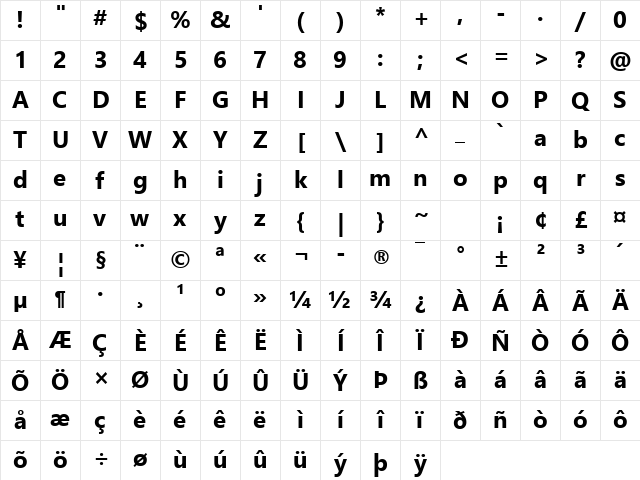
Microsoft Phags Pa Bold
Foundry: Microsoft Corporation
Design Context for Microsoft Phags Pa
Microsoft Phags Pa is a composed and adaptable typeface that performs quietly and consistently across a wide range of design contexts. Its bold stroke weight gives it real presence on the page.
Frequently Asked Questions about Microsoft Phags Pa Bold
Who designed the Microsoft Phags Pa Bold font?